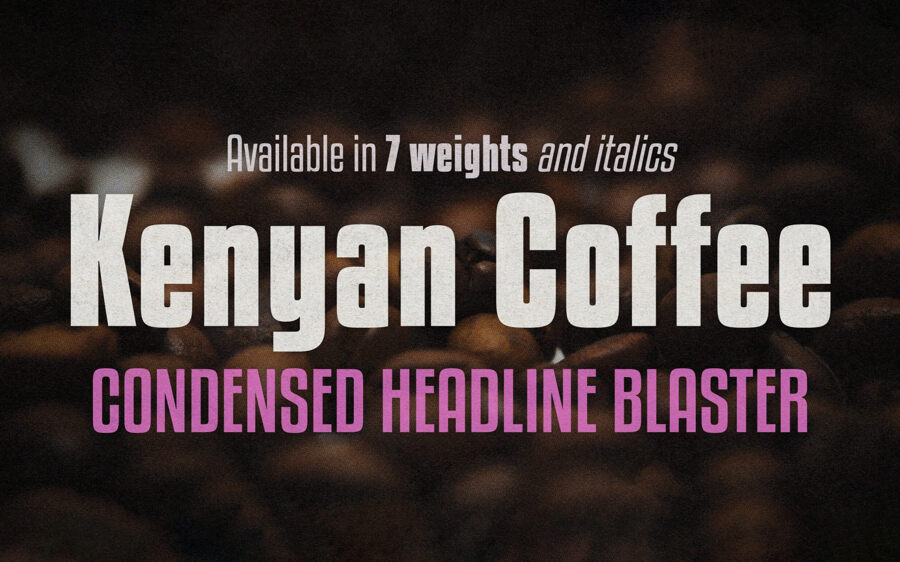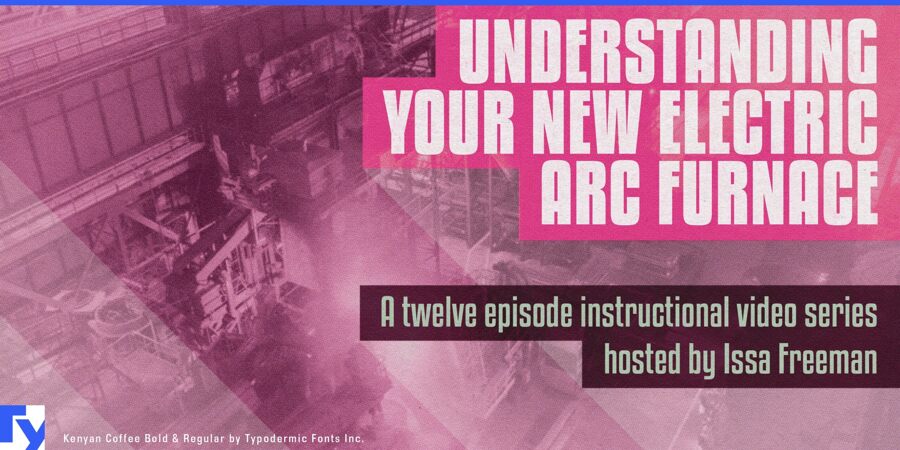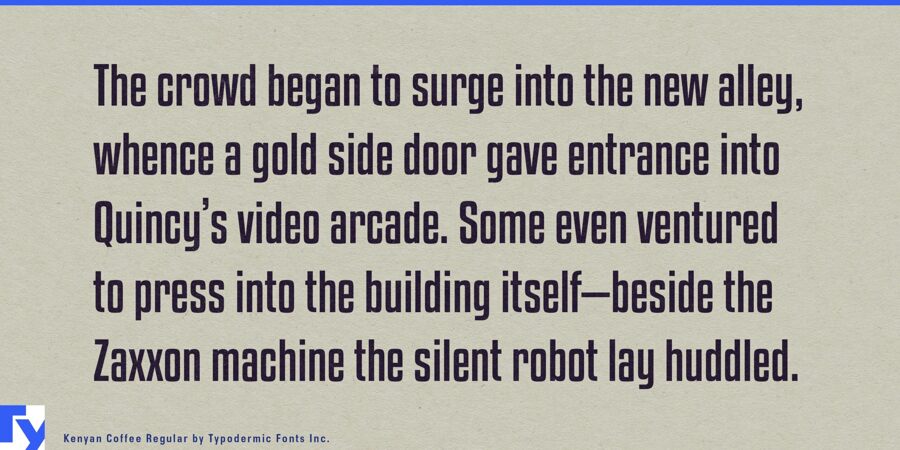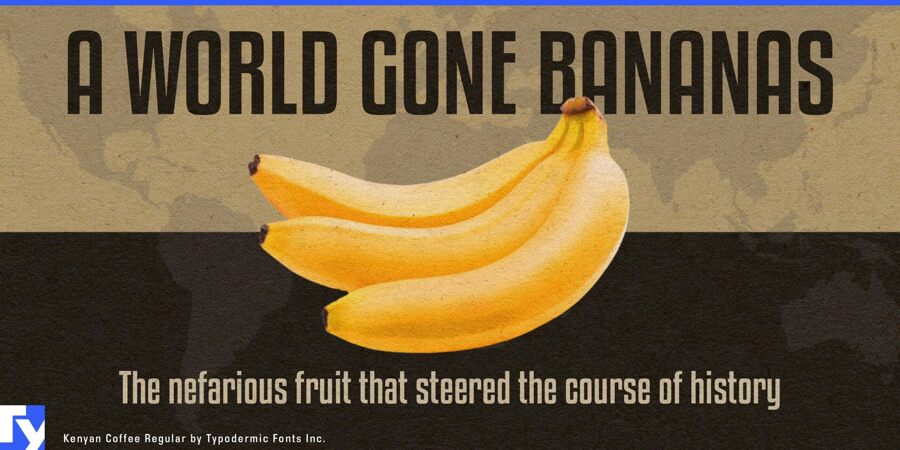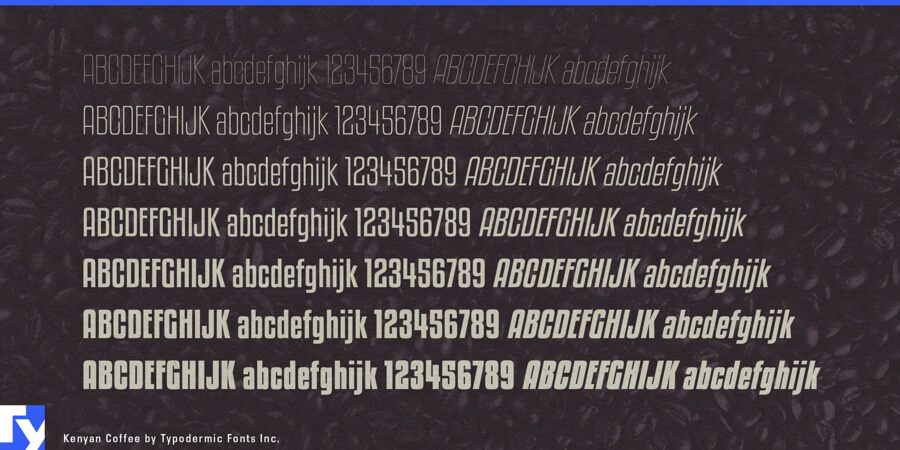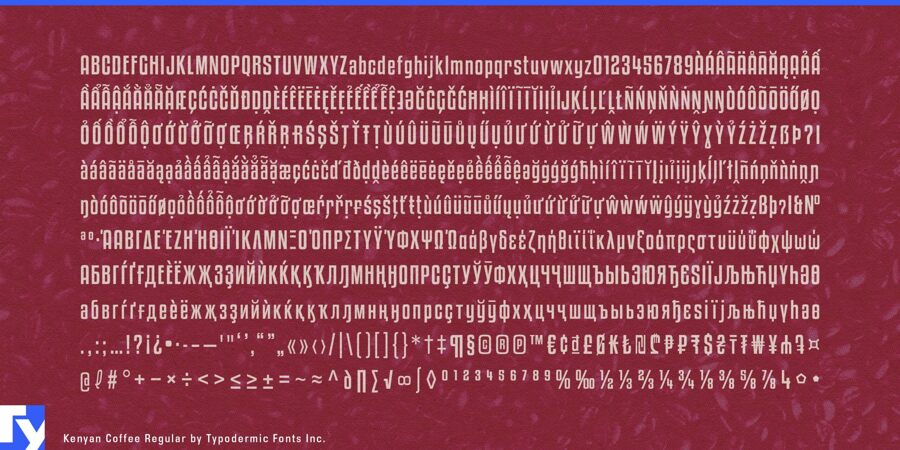
Kenyan Coffee Font Family
Kenyan Coffee combines tall, condensed forms with distinctive high and low cap waistlines for headlines that stand out without feeling eccentric. Its space-saving design makes it ideal for packaging, posters, and tight layouts where every millimeter counts.
The seven weights with matching italics provide flexibility across branding, editorial, and display settings, allowing balanced hierarchies from bold titles to light subheads. Supporting Latin, Greek, Cyrillic, and Vietnamese scripts, it’s suited for international use.